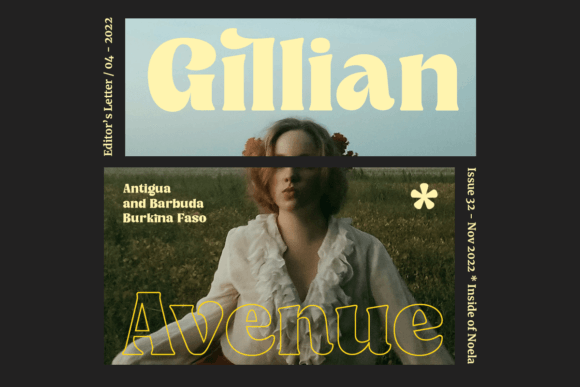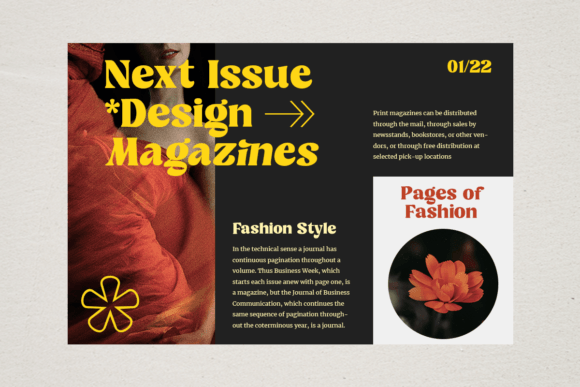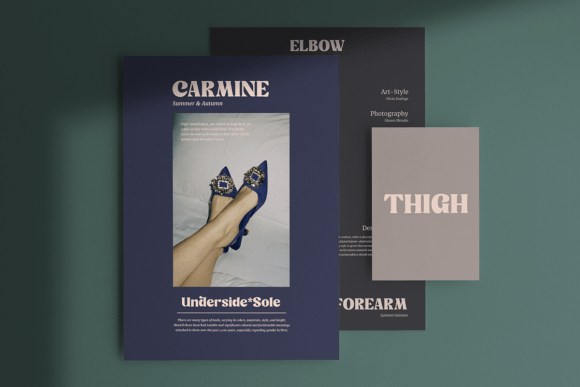
Introduction to Minya Font
Inspired by all the retro aesthetics making a comeback, Minya is a serif font with both a modern and retro look.
It has an Outline version perfect for creating nostalgic yet still elegant designs such as logos, packaging, editorial, and any projects This font is PUA encoded which means you can access all the glyphs and ligatures with ease.
Key Features of Minya Font